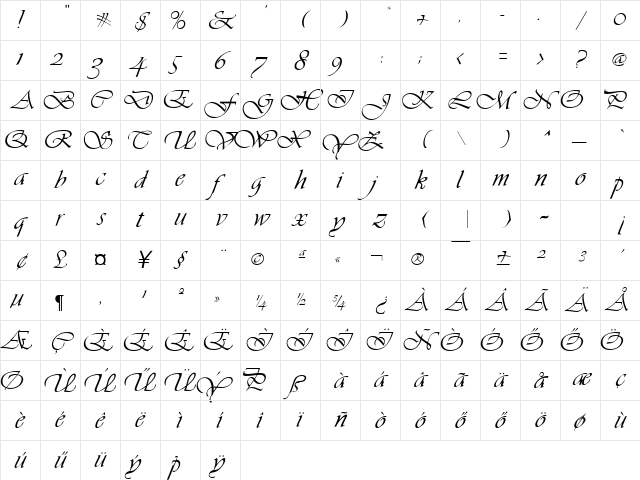
Vivienne HU Normal Free Font
Vivienne HU Normal
Complete Vivienne HU Normal glyph index. Displaying only characters natively supported by Vivienne HU Normal font.
Design Context for Vivienne HU
Vivienne HU is a composed and adaptable typeface that performs quietly and consistently across a wide range of design contexts.